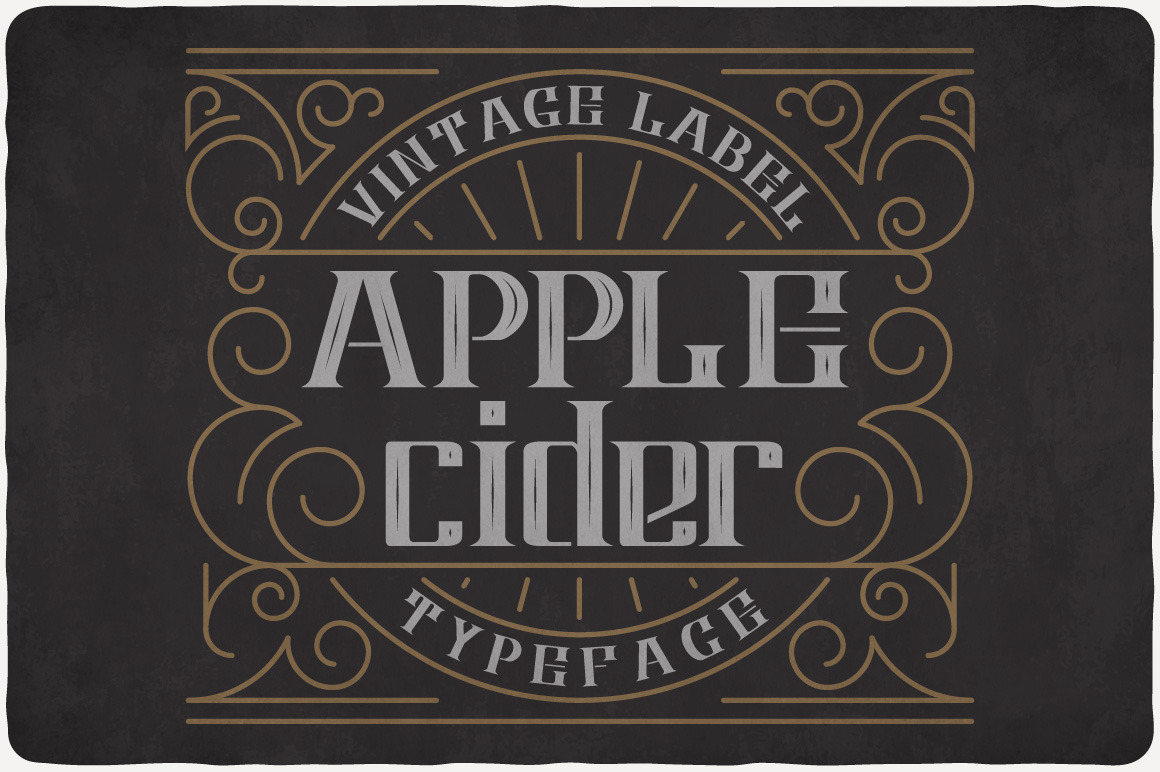
Apple Cider Typeface
Introducing a vintage look label typeface named "Apple Cider". It's made in strong and vintage label style. Typeface is good viewed on any label design.